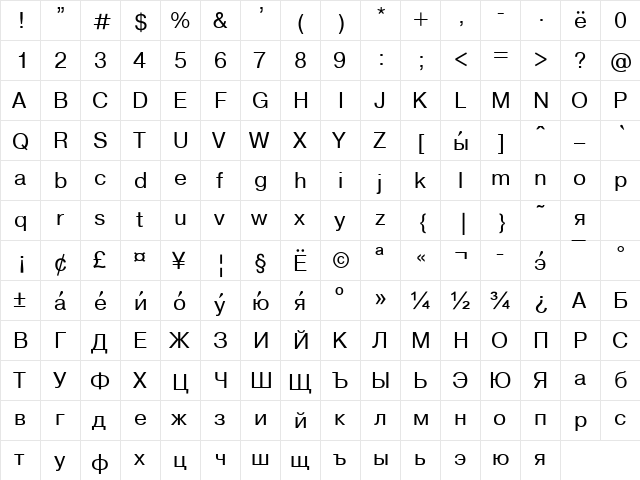
GoldRussian Regular
Design Context for GoldRussian Typeface
GoldRussian is a composed and adaptable typeface that performs quietly and consistently across a wide range of design contexts.